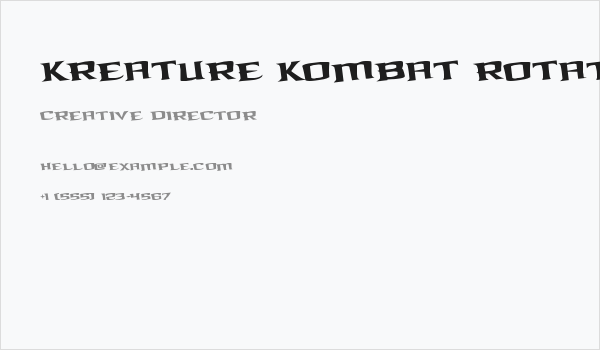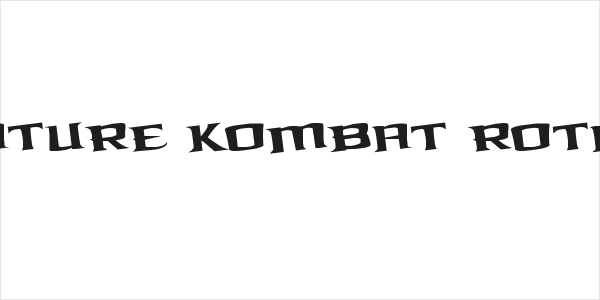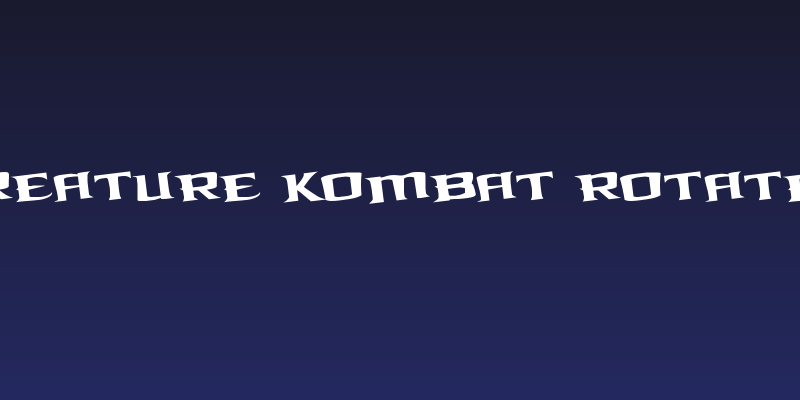
Kreature Kombat Rotated Font
Kreature Kombat Rotated Description
This font features a bold and aggressive design with sharp, angular edges that give it a dynamic and intense appearance. The characters are slightly slanted, adding to the sense of movement and energy. The uppercase and lowercase letters maintain a consistent style, with exaggerated serifs and a unique, edgy flair. The numbers and special characters follow the same bold and striking design, making the font suitable for attention-grabbing headlines or thematic projects. The overall aesthetic is reminiscent of a combat or action theme, with a modern twist.
Overall StyleModern, Aggressive
Proposed ProjectsIdeal for video game titles, movie posters, sports team logos, or any project requiring a strong, impactful typeface.